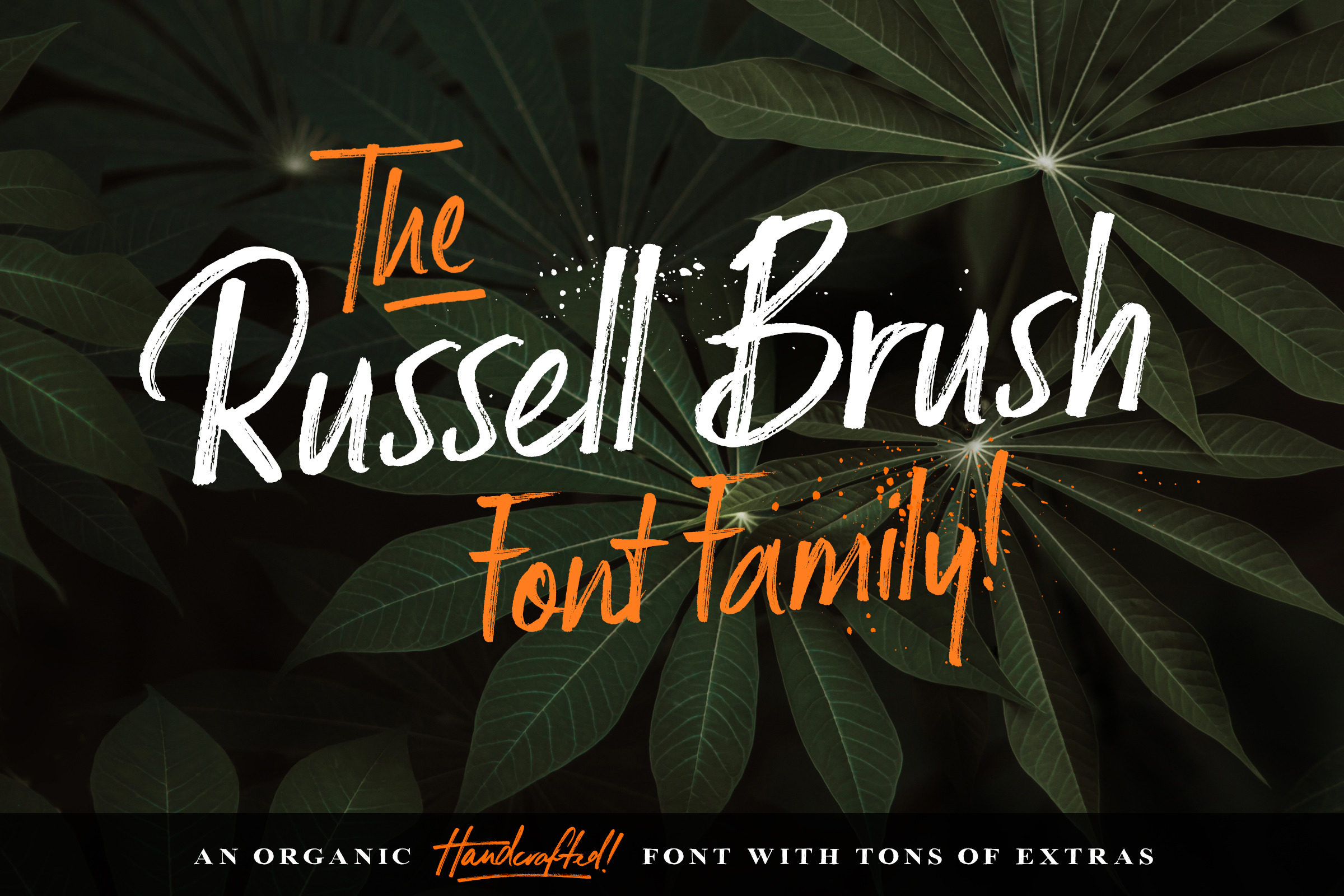
Russell Brush Script Font
Introducing Russell - An organic and expressive handwritten brush script font designed for versatility. It's legible; making it perfect for product packaging, editorial work, and poster design, and it oozes personality; great for branding, invitations, and more.
This font packs a real punch with super duper textures and a ton of useful extras (that line is certainly getting copyrighted!) including custom catchwords, ink splatters, underlining brush strokes, and italics! Take a look below to see everything that's included.
- Russell: The original Russell script font boasting a full glyph range with multilingual support.
- Russell Alternative: An entirely new font with slightly different lowercase and uppercase letters - perfect for improving the handwritten aesthetic.
- Russell Extras: A font full of useful extras (Swashes, strokes, and splatters) that look great with the Russell fonts. Simply select the 'Russell Extras' font and start typing (no copying and pasting!).
- Russell Catchwords: Just like the extras above, this font is packed with 23 bonus custom catchwords that beautifully complement the family.
- Russell & Russell Alternative Italic: Both Russell and Russell Alternative have italic options included, opening up more design possibilities.